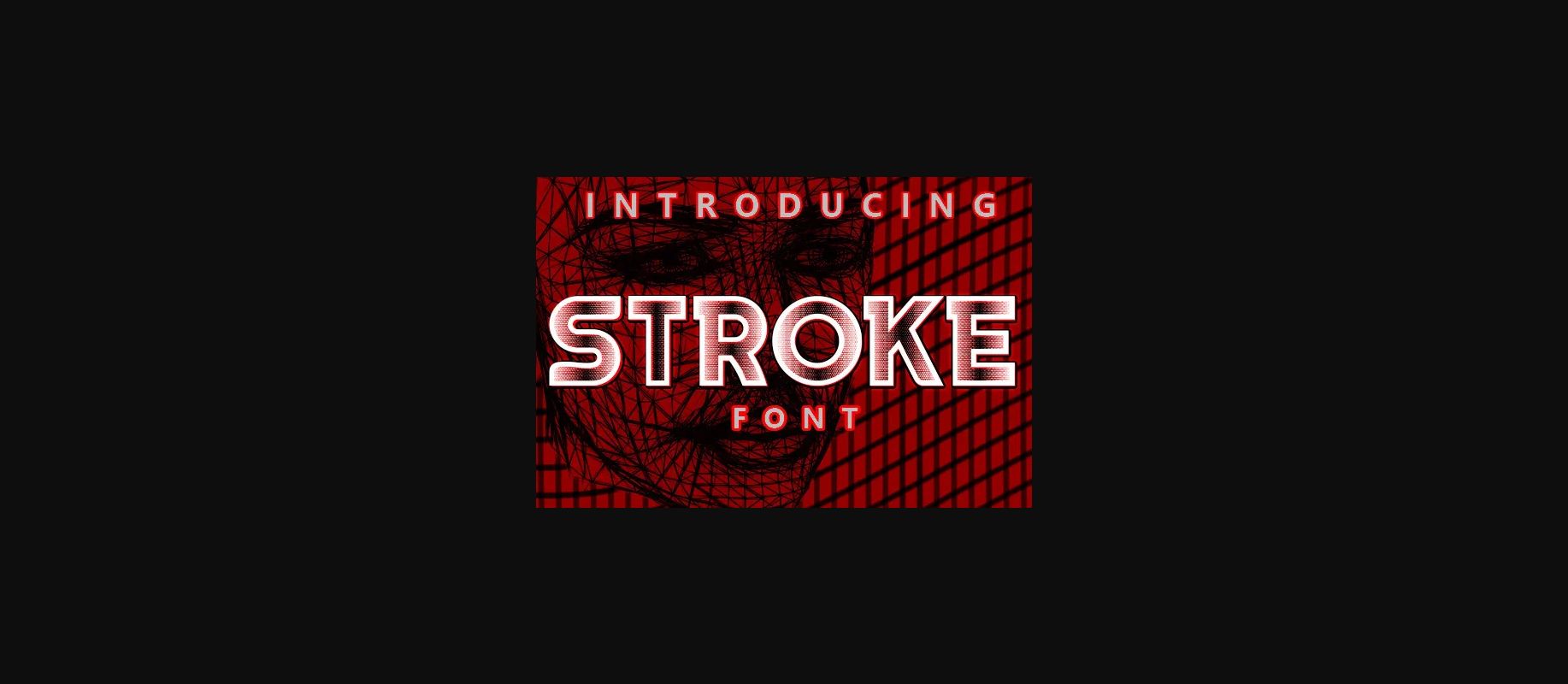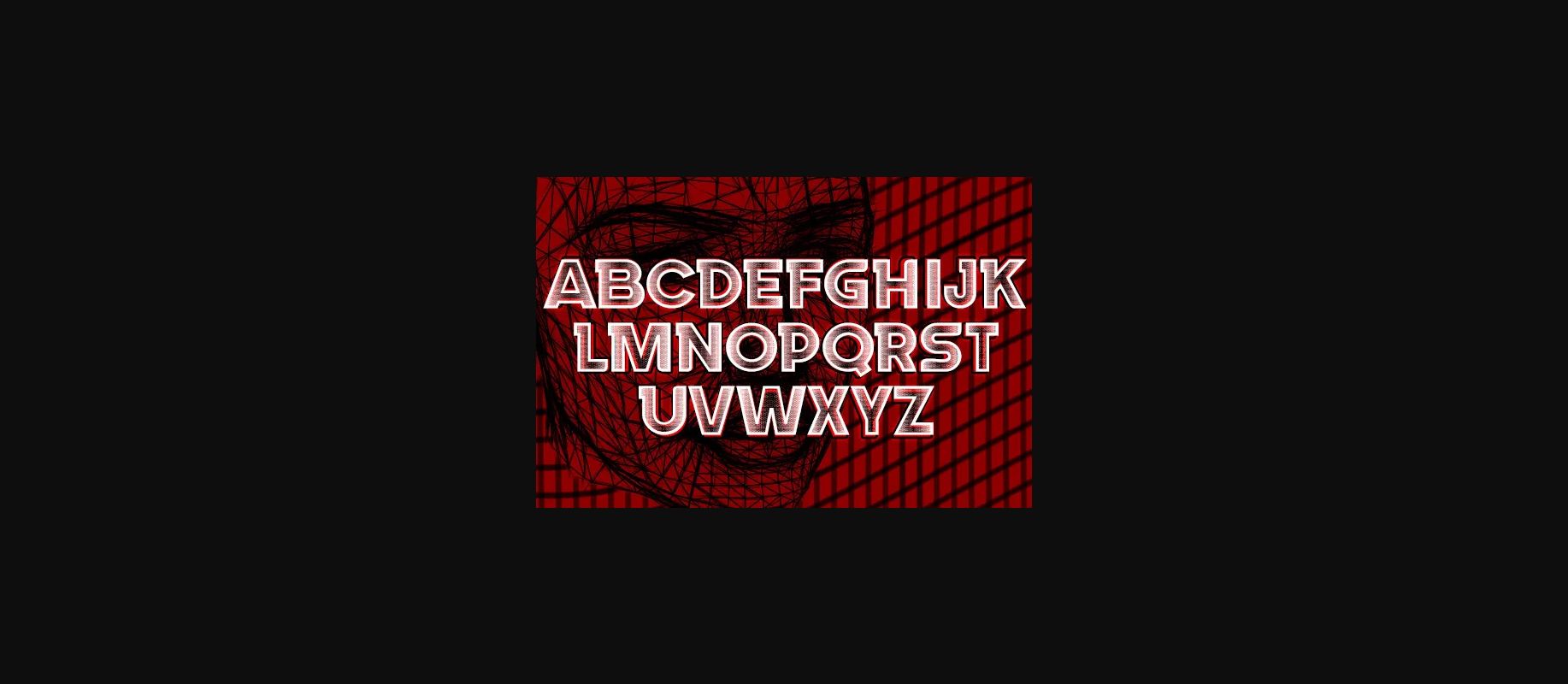
Stroke is a strong and natural outline Decorative font. It will look stunning on any poster, flyer, print, and much more! Use this font for your designs and explore its endless possibilities.